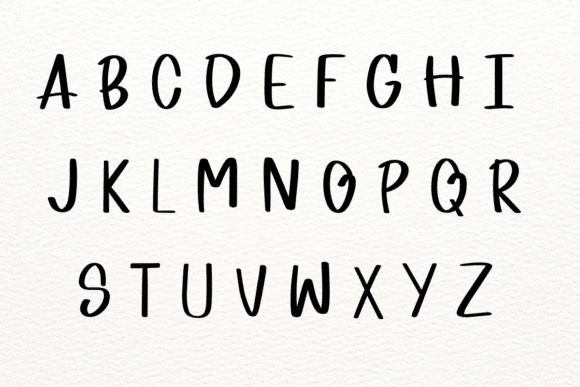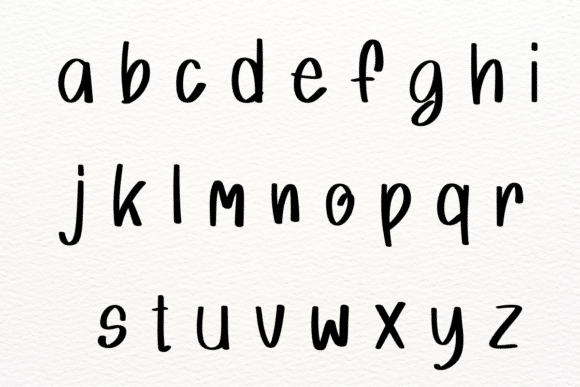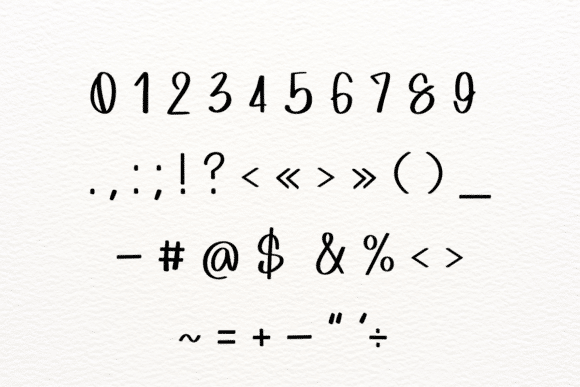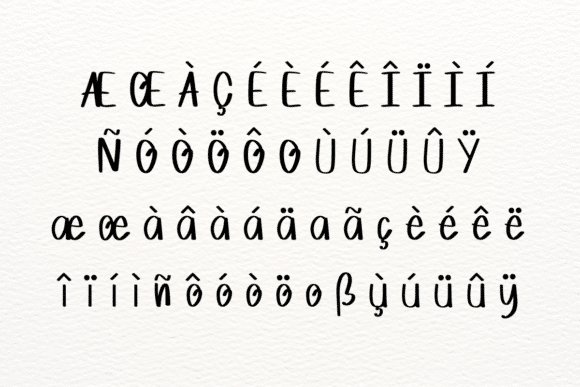
Introducing the “OhioSpring Handwritten Font,” a beautifully crafted typeface that captures the essence of springtime elegance with its delicate, flowing strokes. Perfect for wedding invitations, greeting cards, and personal branding, this font brings a touch of warmth and charm to any project.